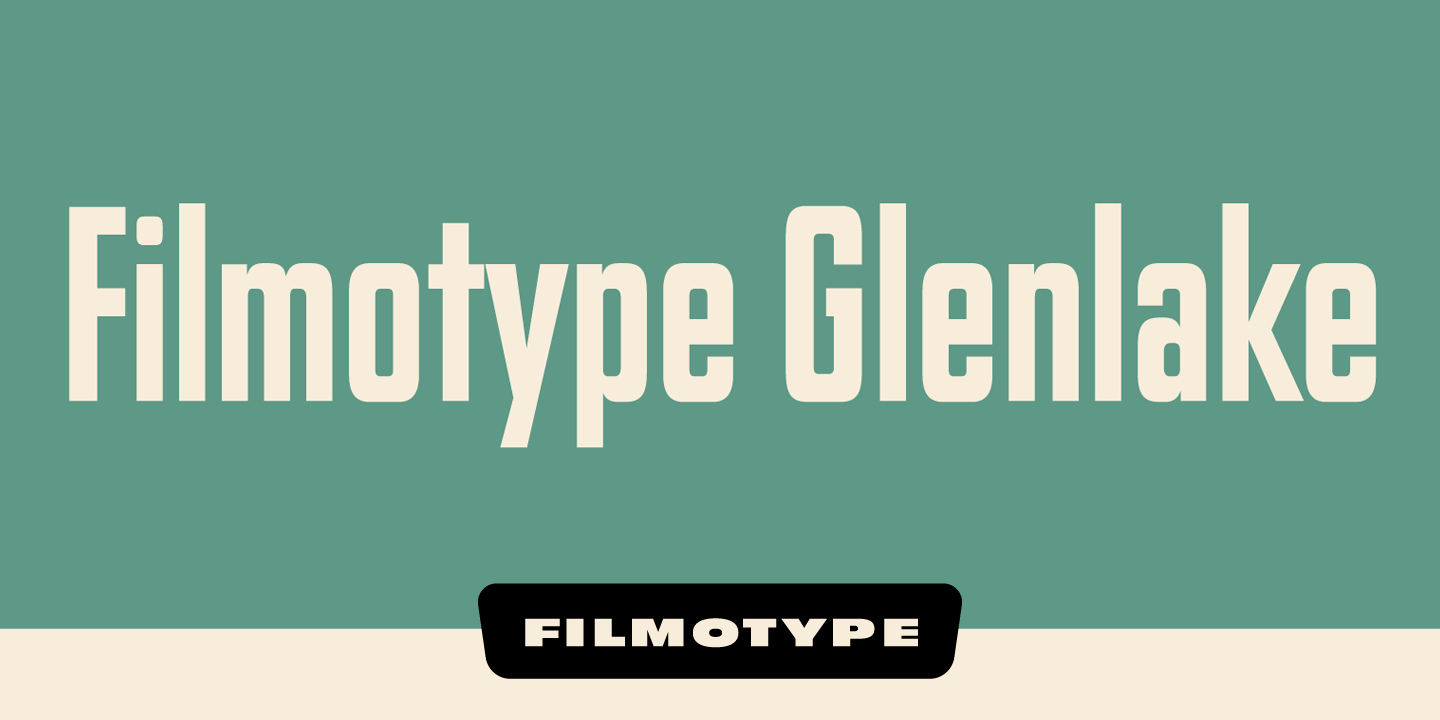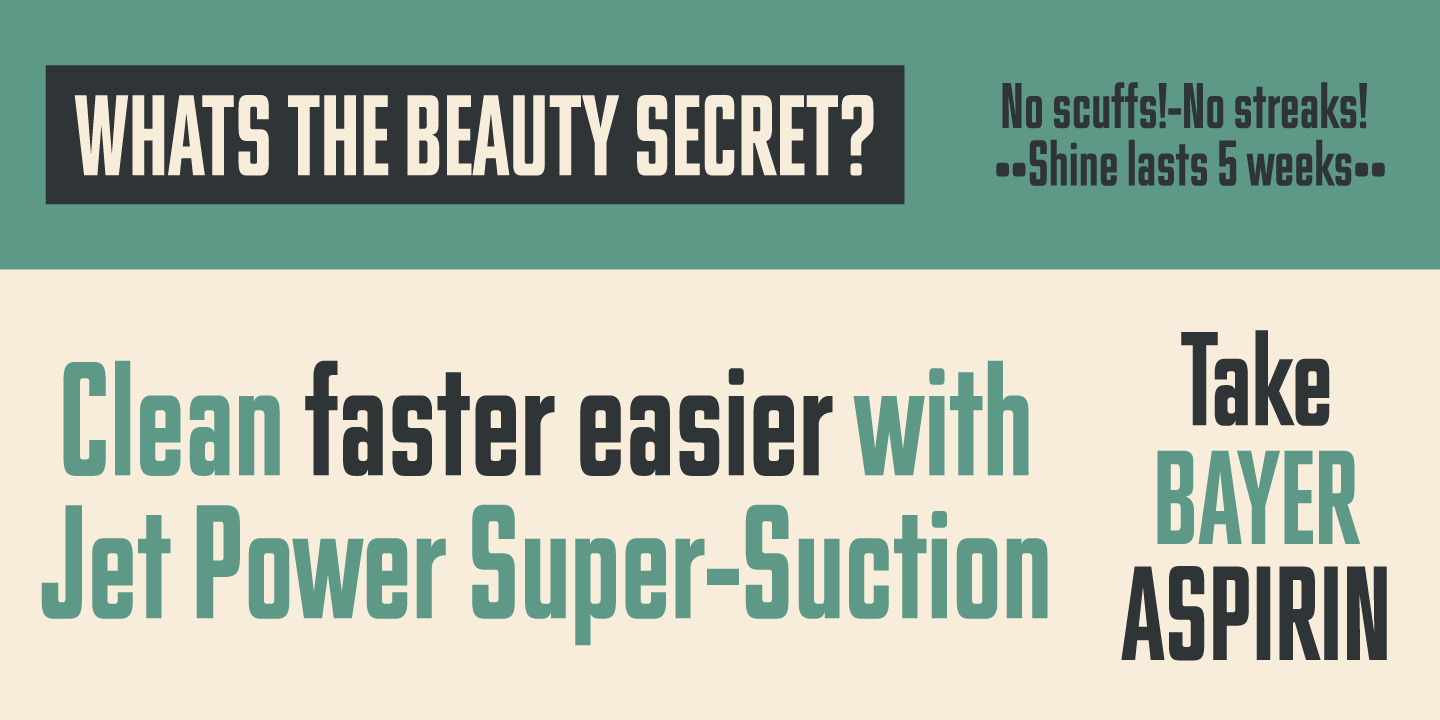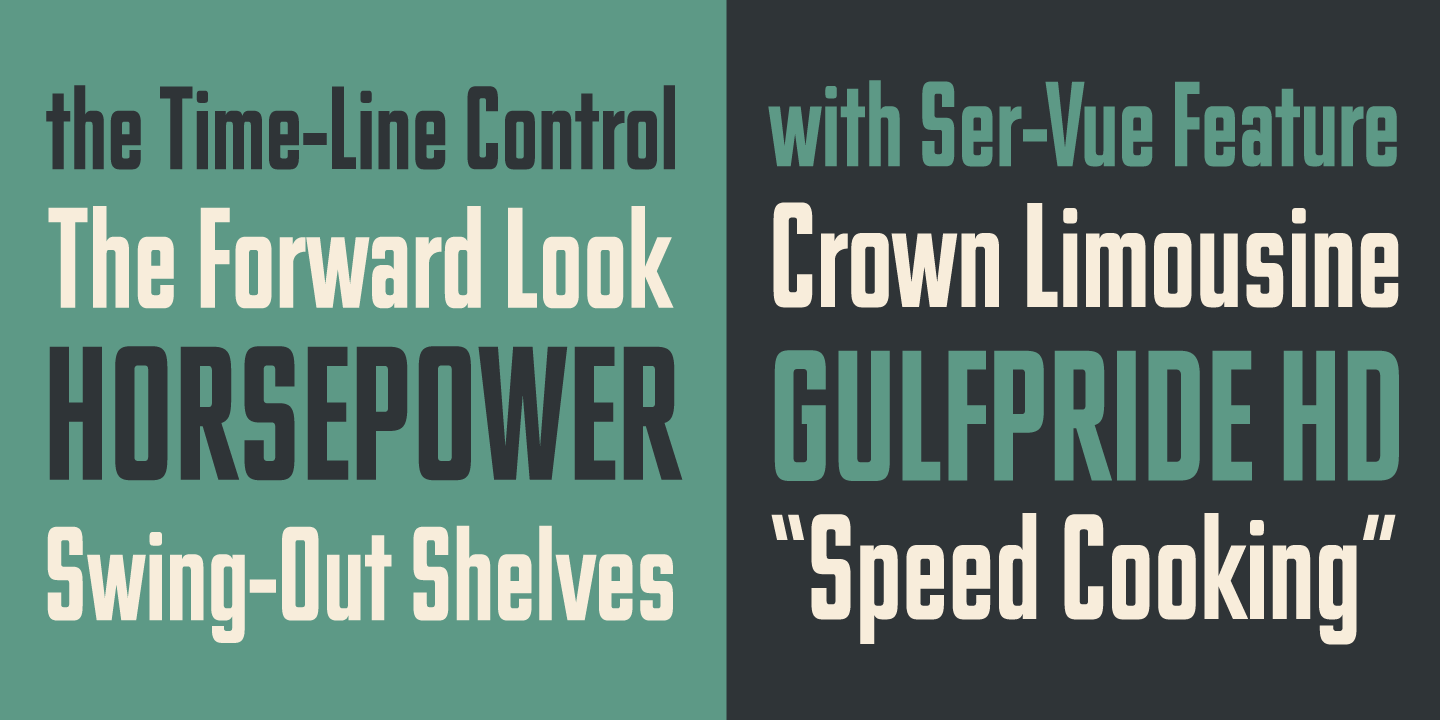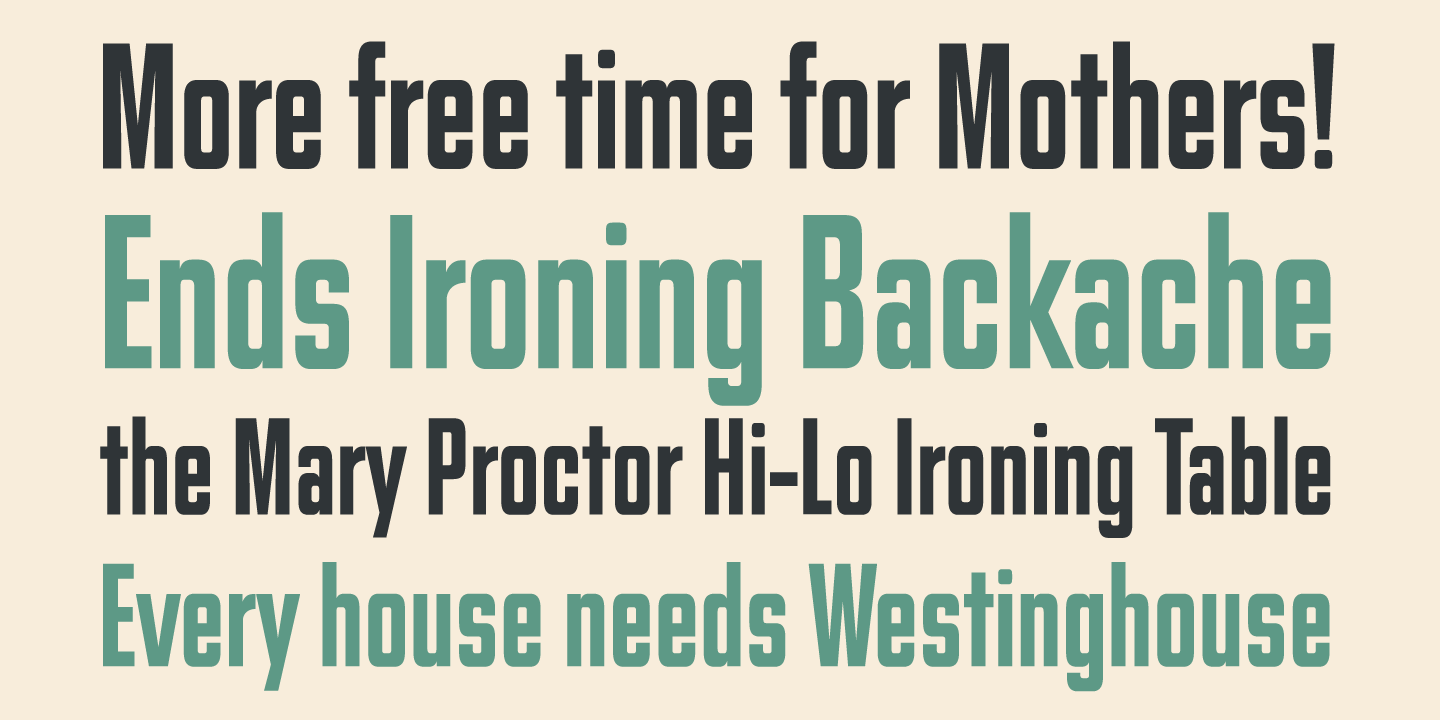
Filmotype Glenlake
Initially designed and released in 1955, this Gothic Sans Serif was remastered and expanded with exacting precision and includes a full international character compliment, automatic fractionals, ordinals, an all CAPS setting, and a suite of alternates in dynamic OpenType format.
Having disappeared from graphic design history, Filmotype Glenlake reappeared in 1994's "Ed Wood" with a starring role in the open credits. The font however was initially named after a lake north of Chicago near the home of Filmotype's founders Al and Bea Friedman.